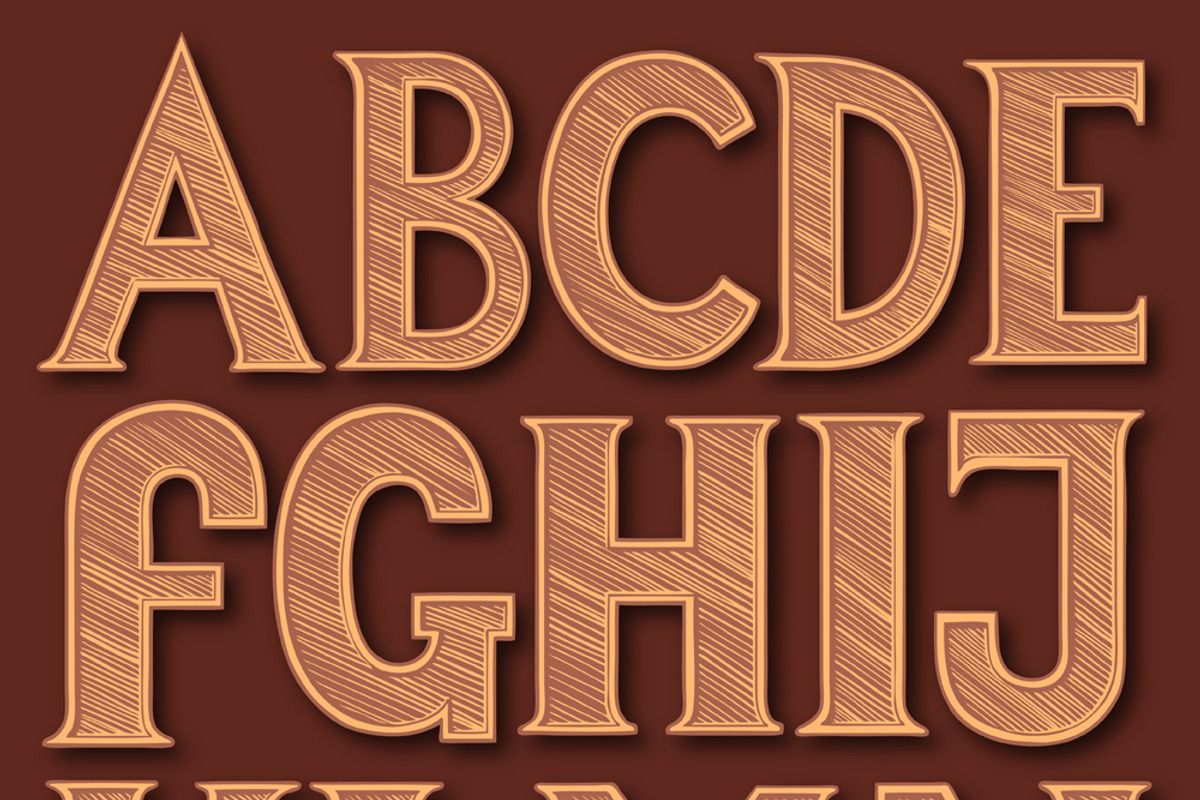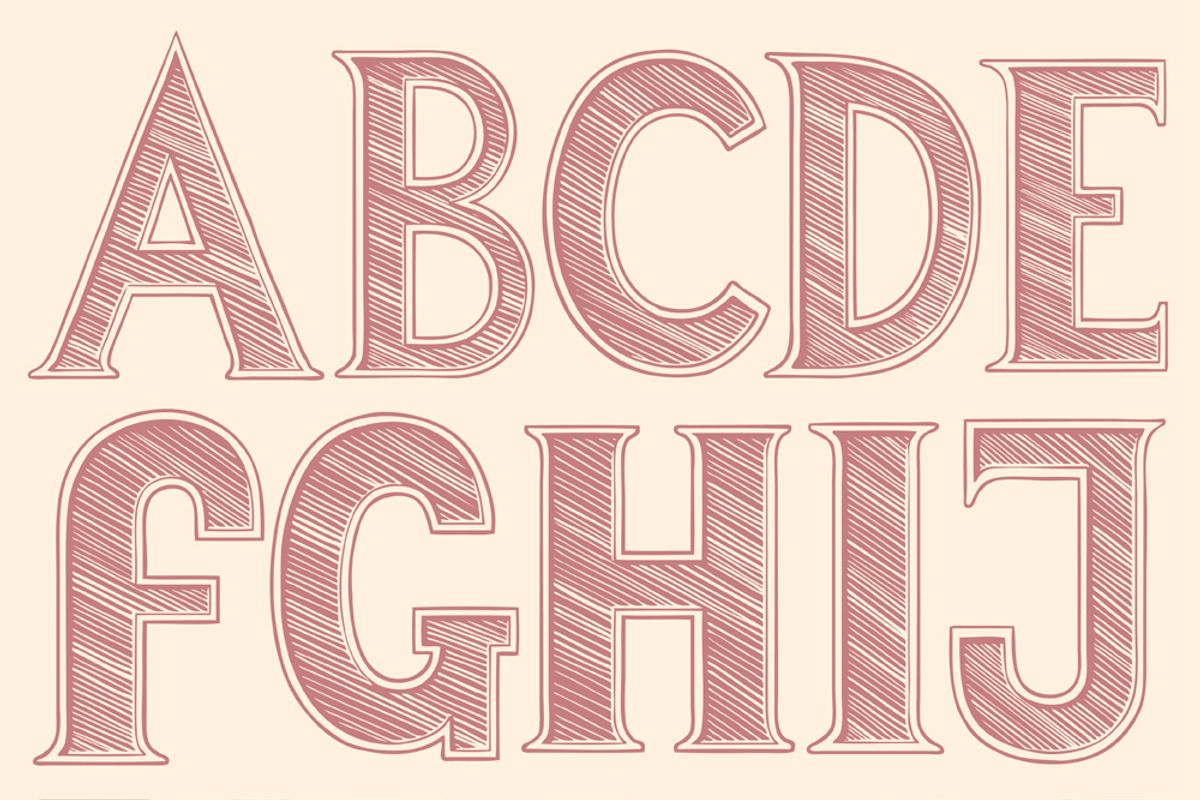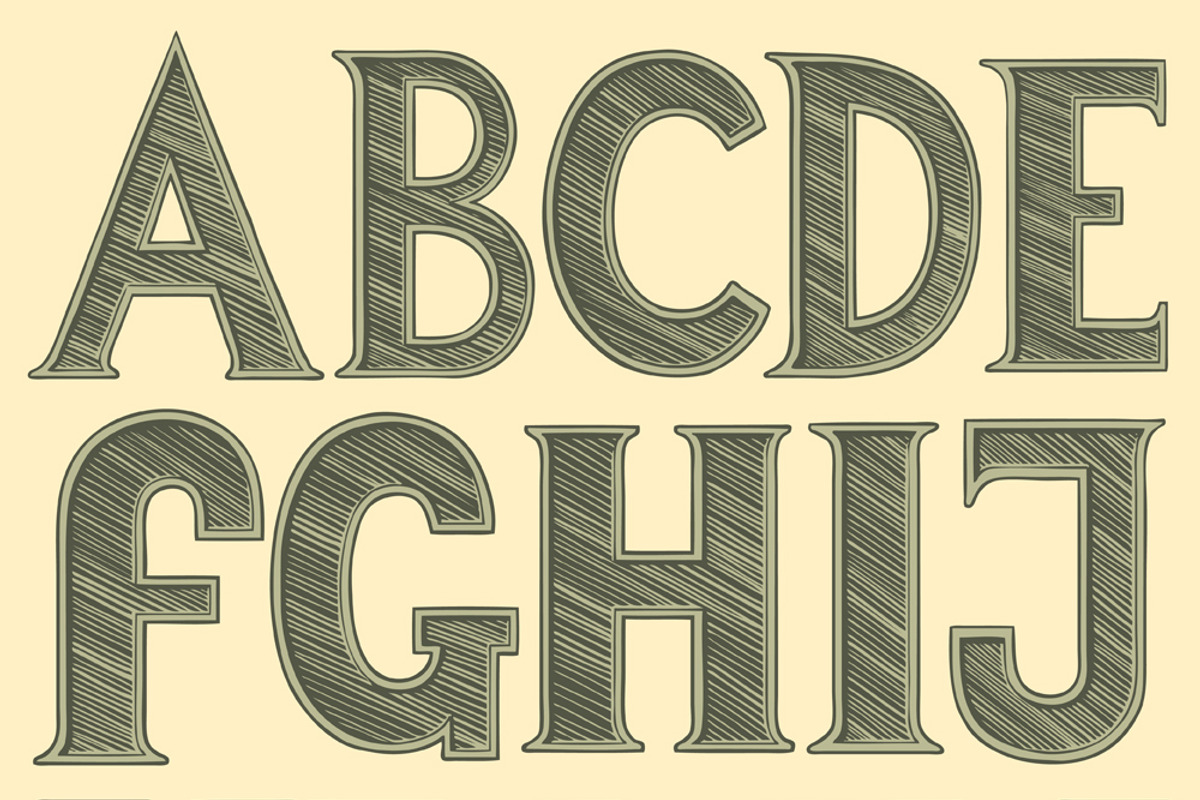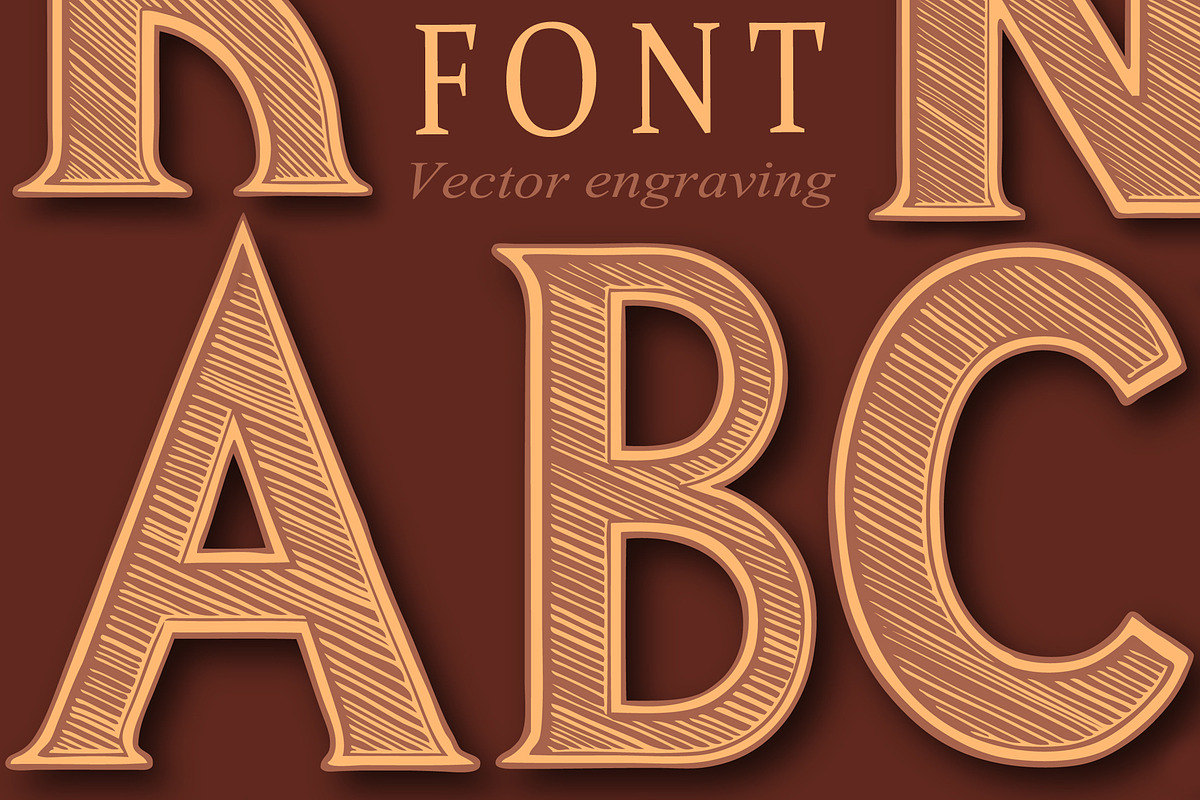
Font. Vector engraving
Editable vector capital letters made in the style of vector engraving. Set contains AI files, EPS8 files, high quality JPEG files, high quality PNG files with transparent background, multi-layer PSD file. Illustrations are intended for the design of books, booklets, invitation cards, advertising, sites, clothing, packaging. Have a good job!